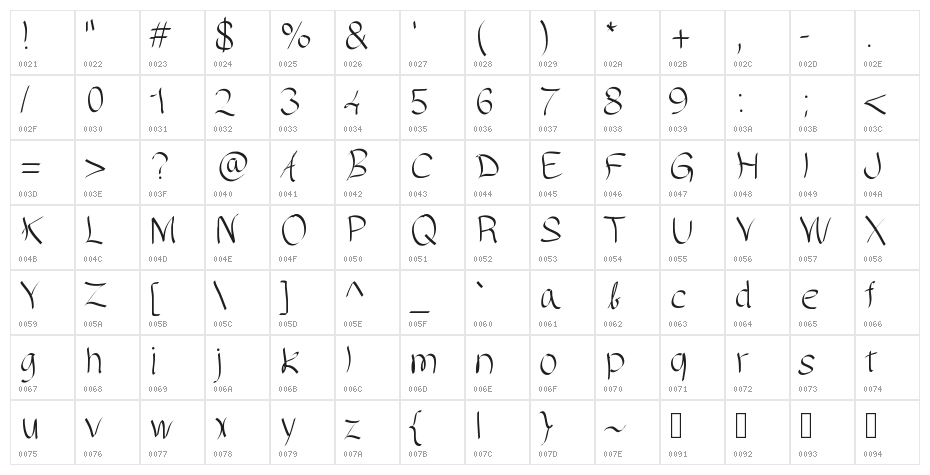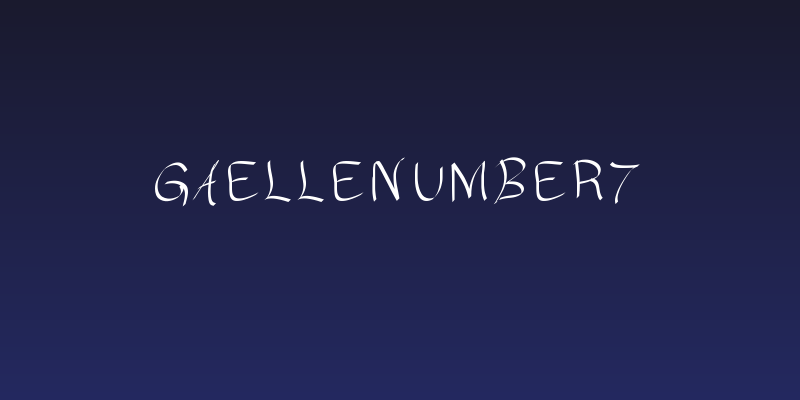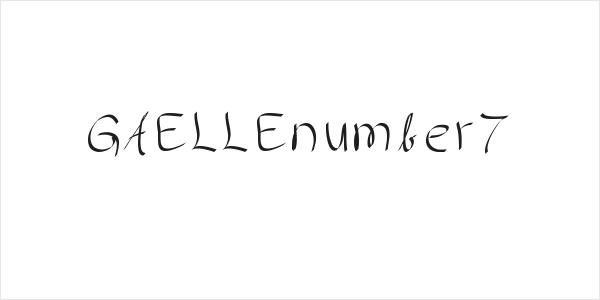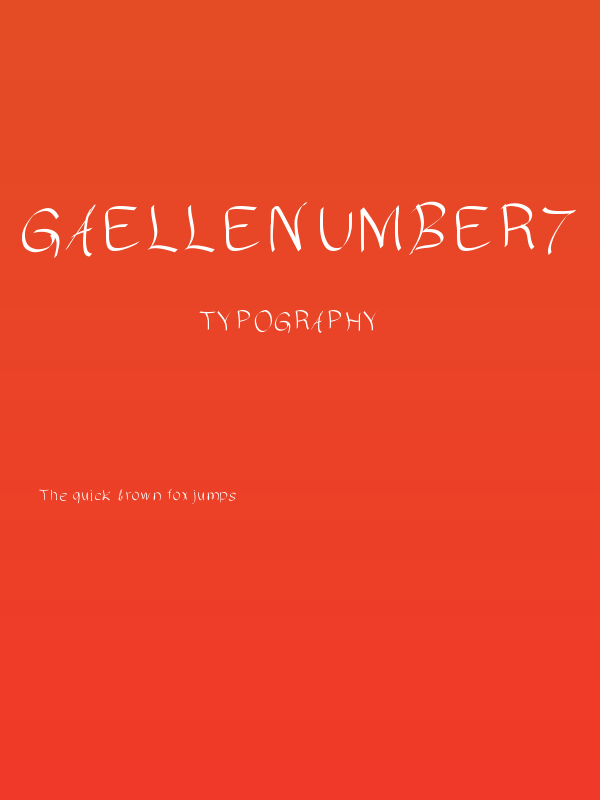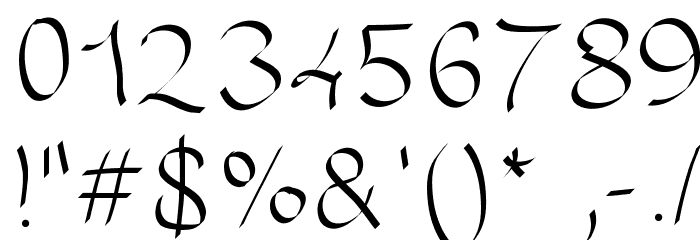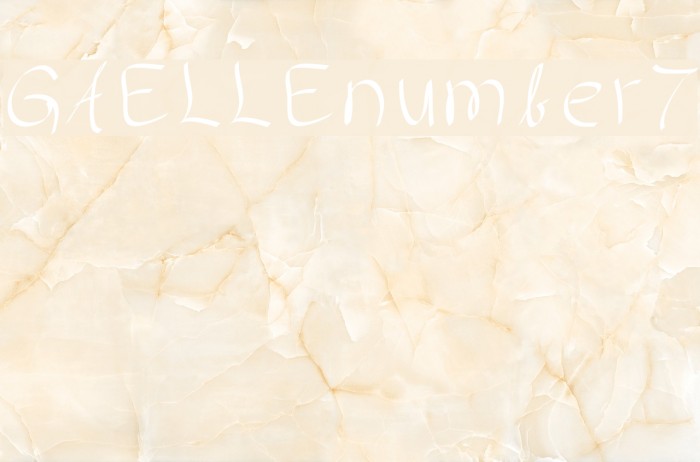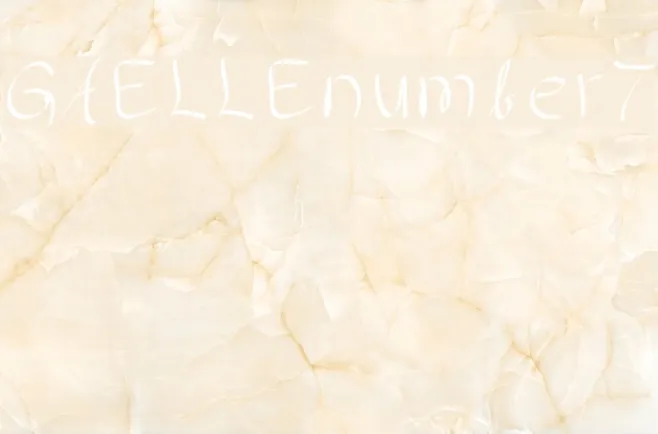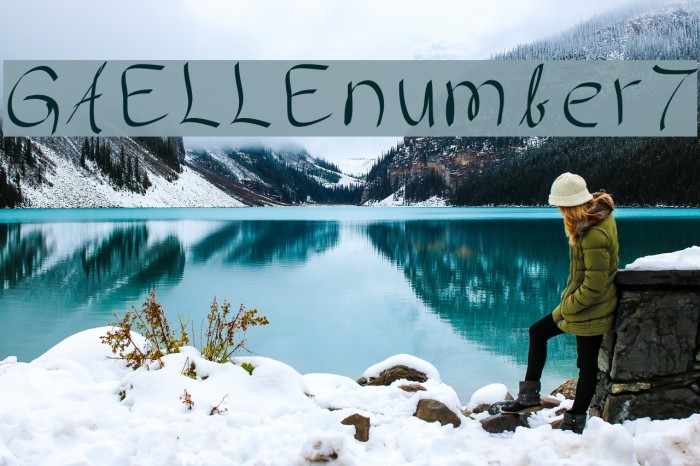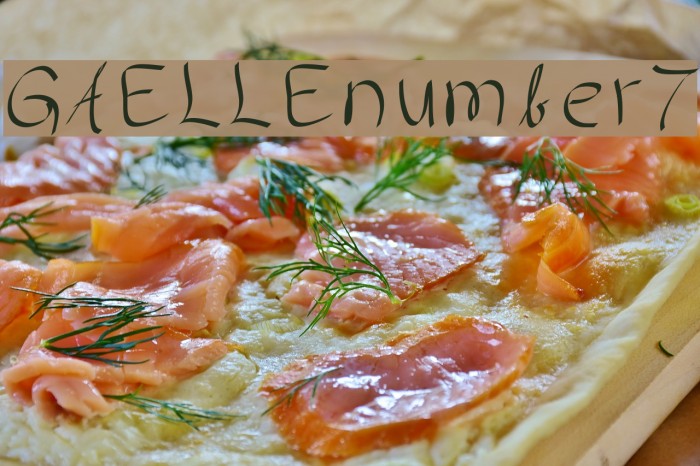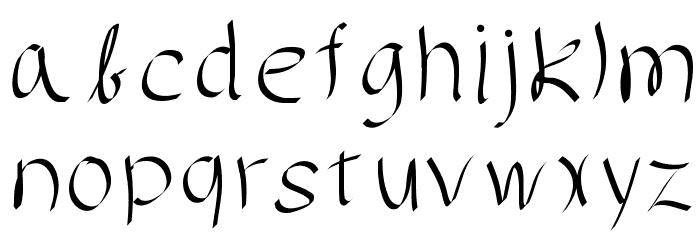
GAELLEnumber7 Font
GAELLEnumber7 Description
This font features an elegant and artistic style with a calligraphic touch. The characters exhibit a fluid and dynamic form, with strokes that vary in thickness, adding a sense of movement and grace. The uppercase letters are bold and slightly elongated, while the lowercase letters maintain a consistent flow, enhancing readability. Numbers and special characters are designed with the same artistic flair, making them visually cohesive with the alphabet. The overall design is sophisticated, making it suitable for projects that require a touch of elegance and creativity.
| Proposed Projects | Ideal for wedding invitations, greeting cards, artistic posters, and branding materials that require a sophisticated and creative touch. |